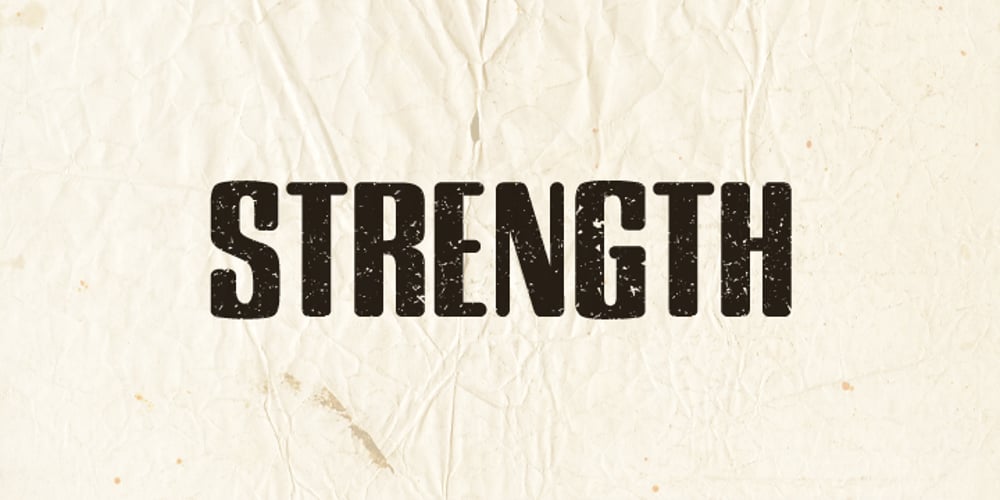
Roka
Roka font
Roka Font Family was designed by Alex Haigh and published by HyperFluro. Roka contains 1 styles and family package options. Roka is a remix of the original 2010 Rika typeface. This time it’s got texture and a lot more attitude.